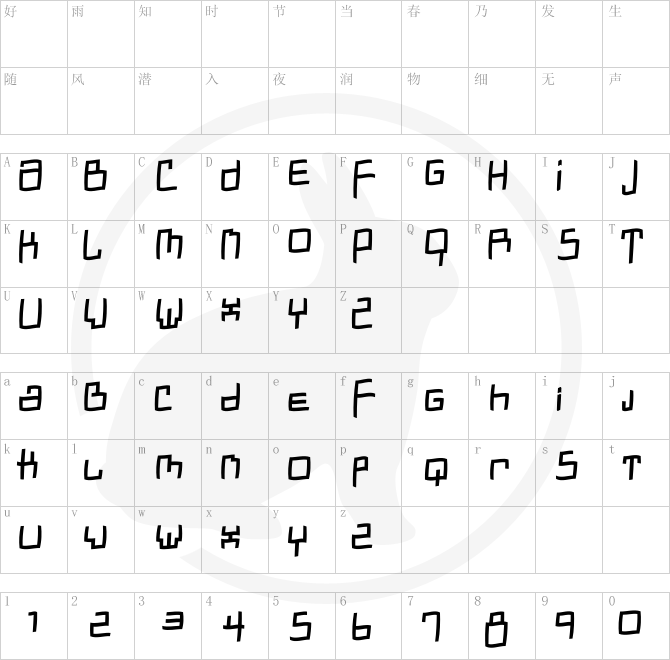
- Font Name:DadasTracesFreeshapes
DadasTracesFreeshapes-Italic.ttf is a very beautiful artistic font, DadasTracesFreeshapes-Italic.ttf is widely used in the design and printing of various books and pictures,DadasTracesFreeshapes-Italic.ttf has a strong visual impact,DadasTracesFreeshapes-Italic.ttf is a commonly used font in newspapers, magazines and books, and is used in posters, e-commerce Poster design, store design, logo design, font design and other fields.DadasTracesFreeshapes-Italic.